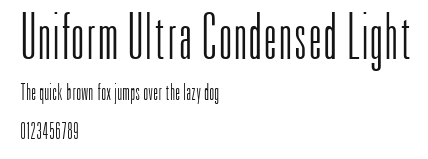
• Font Name: Uniform Ultra Condensed Light
• Full Font Name: Uniform Ultra Condensed Light Regular
About Uniform Ultra Condensed Light.ttf
Uniform Ultra Condensed Light.ttf is a modern, elegant sans-serif font designed for ultimate readability and visual harmony. Perfect for branding, headlines, web design, and print materials.